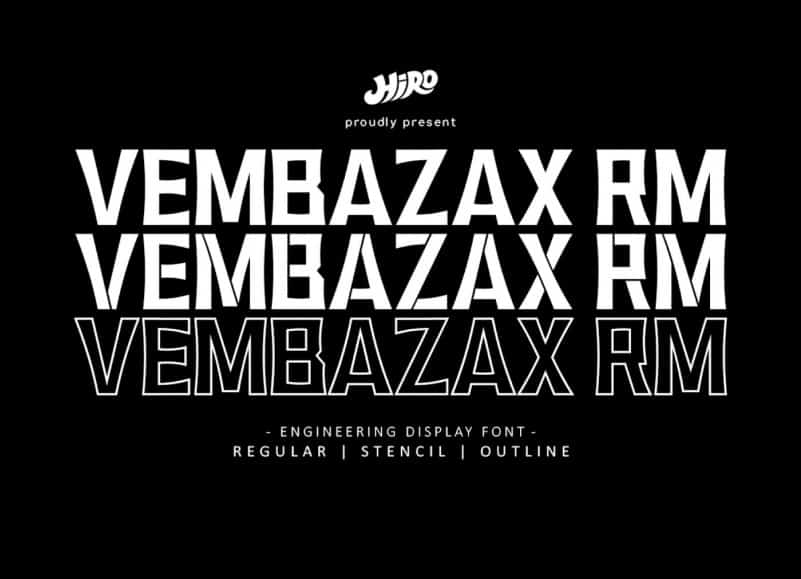
Vembazax RM Display Font
Vembazax RM Display Font is a high tech futuristic scifi typeface, This font is a new free font created by HIRO std. This display font features 3 different styles and is perfect for your next logo or poster design. You’ll get a solid, outlined & stencil version, each including a number of stylish bonus ligatures.
perfect for poster, logo, headline, display and many more. Use this to elevate your modern techno brand and projects.